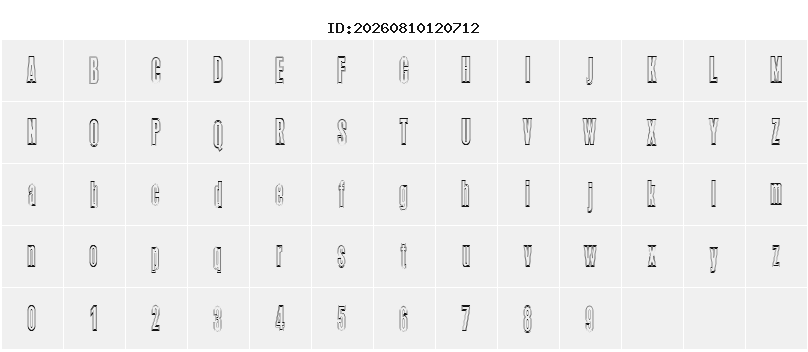
About Quote Outline.ttf
Quote Outline.ttf is a modern, elegant sans-serif font designed for ultimate readability and visual harmony. Perfect for branding, headlines, web design, and print materials.